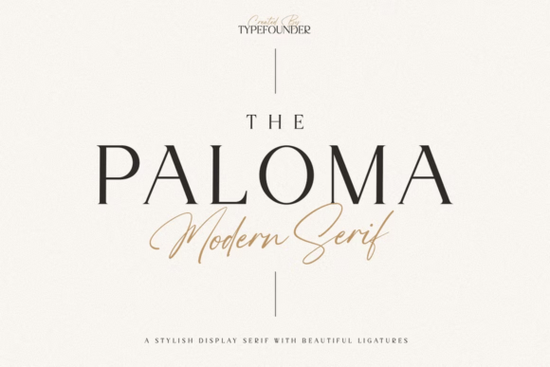
If you're looking for a serif font that feels both timeless and quietly confident something that works just as well on a boutique product label as it does in a high-end editorial layout The Paloma Font is worth your attention. It’s not flashy or overly decorative, but its high-contrast strokes and sharply refined serifs give it presence without shouting. Designers working on luxury branding, small-batch print-on-demand goods, or minimalist logo projects often find it fits naturally where other display serifs feel too heavy or too fussy.
Who actually uses The Paloma Font and why?
Small business owners launching a skincare line or artisanal candle brand often choose The Paloma Font for packaging and website headers because it conveys care and intention not trendiness. Print-on-demand sellers appreciate how cleanly it renders at small sizes on mugs, tote bags, or greeting cards, especially when paired with subtle textures or muted color palettes. Editorial designers use it for magazine section titles or pull quotes where readability meets quiet sophistication. Even hobbyists building wedding stationery or custom art prints find it easy to pair with simple layouts and natural photography.
How does it compare to other elegant serif fonts on Creative Fabrica?
It sits comfortably between classic structure and modern restraint unlike Roses Garden Font, which leans more romantic and script-influenced, or Lovine Font, which has softer curves and a gentler contrast. If you’ve tried Refined Society Font, you’ll notice Paloma has tighter spacing and crisper terminals making it slightly more versatile for tight layouts. And compared to Emerale Font, which carries a subtle calligraphic rhythm, Paloma stays grounded in typographic tradition while still feeling fresh.
Where does it work best and where might it fall short?
Works well:
- Luxury product labels (perfume, chocolate, ceramics)
- Minimalist logo lockups (especially monogram or wordmark-only)
- Editorial mastheads, chapter titles, and quote graphics
- Digital banners for Etsy or Instagram shop pages
Less ideal for:
- Long paragraphs or web body copy (it’s a display serif, not a text face)
- High-contrast neon or grunge design contexts it reads best against clean, uncluttered backgrounds
- Brands aiming for playful, youthful, or tech-forward energy (try something like The Paloma Font instead)
Real-world pairing tips
You don’t need a font pairing toolkit to get good results with Paloma. Start simple: pair it with a neutral sans-serif like Montserrat, Inter, or even system fonts (Helvetica, Georgia) for balance. For print projects, try setting Paloma at 24–36pt for headers and using a 10–12pt sans for supporting text this contrast reinforces hierarchy without competing. If you’re designing for embroidery or vinyl cutting, test the uppercase “A”, “M”, and “W”: their sharp serifs hold up well, but avoid ultra-thin lines under 0.25pt in vector exports.
If most answers are yes, The Paloma Font is likely a solid fit. It won’t solve every typography challenge but for the right project, it adds clarity, calm, and quiet distinction.